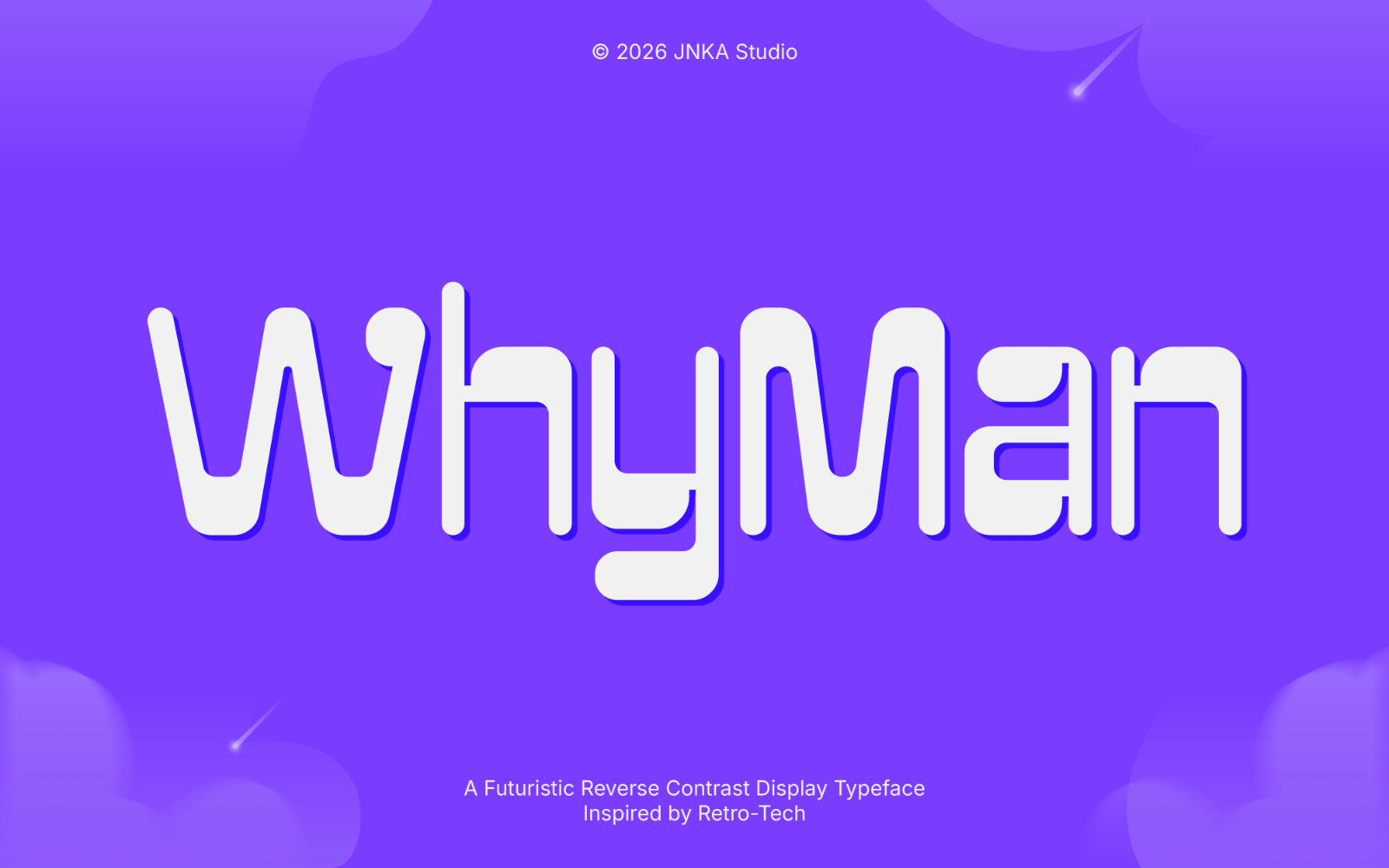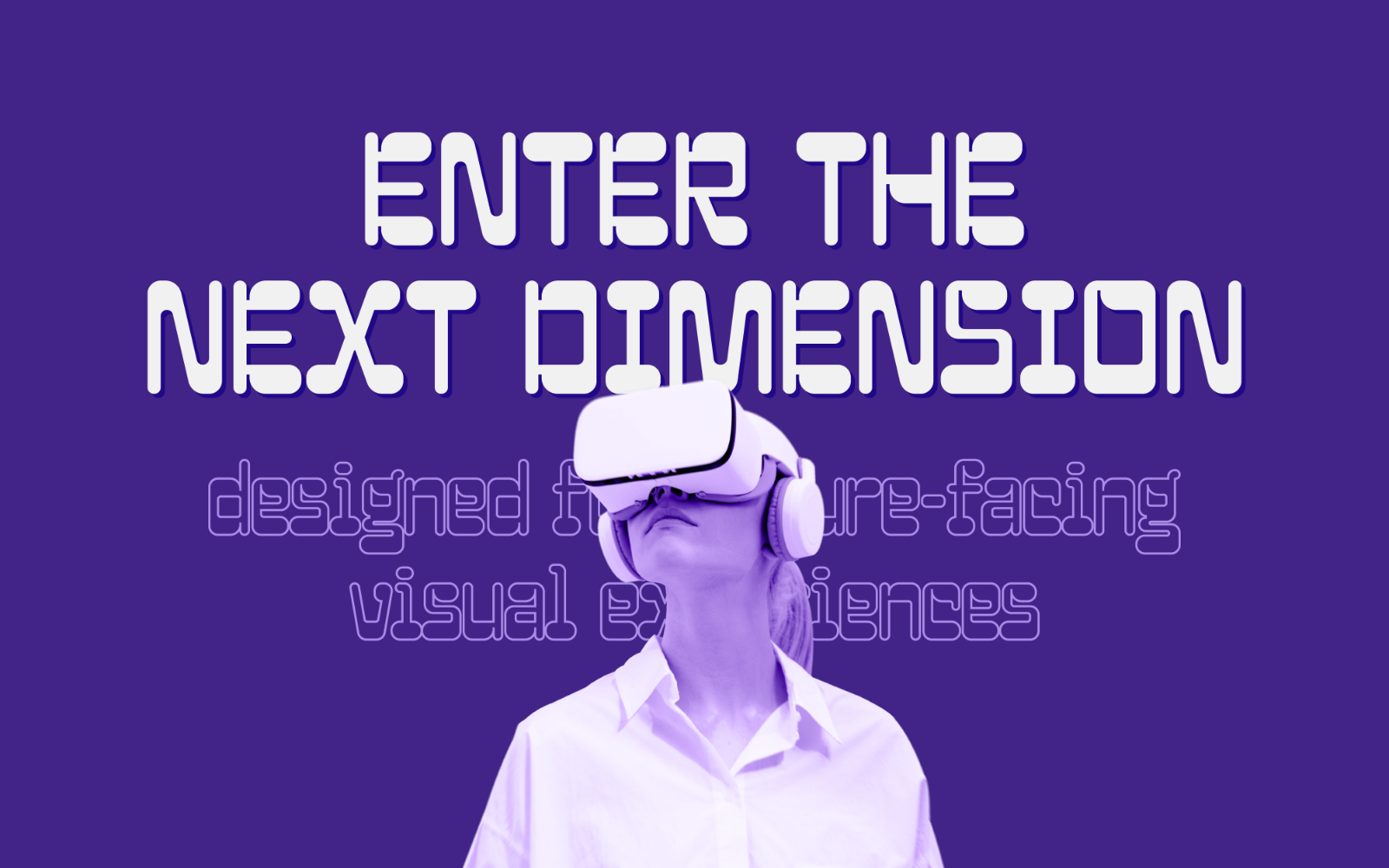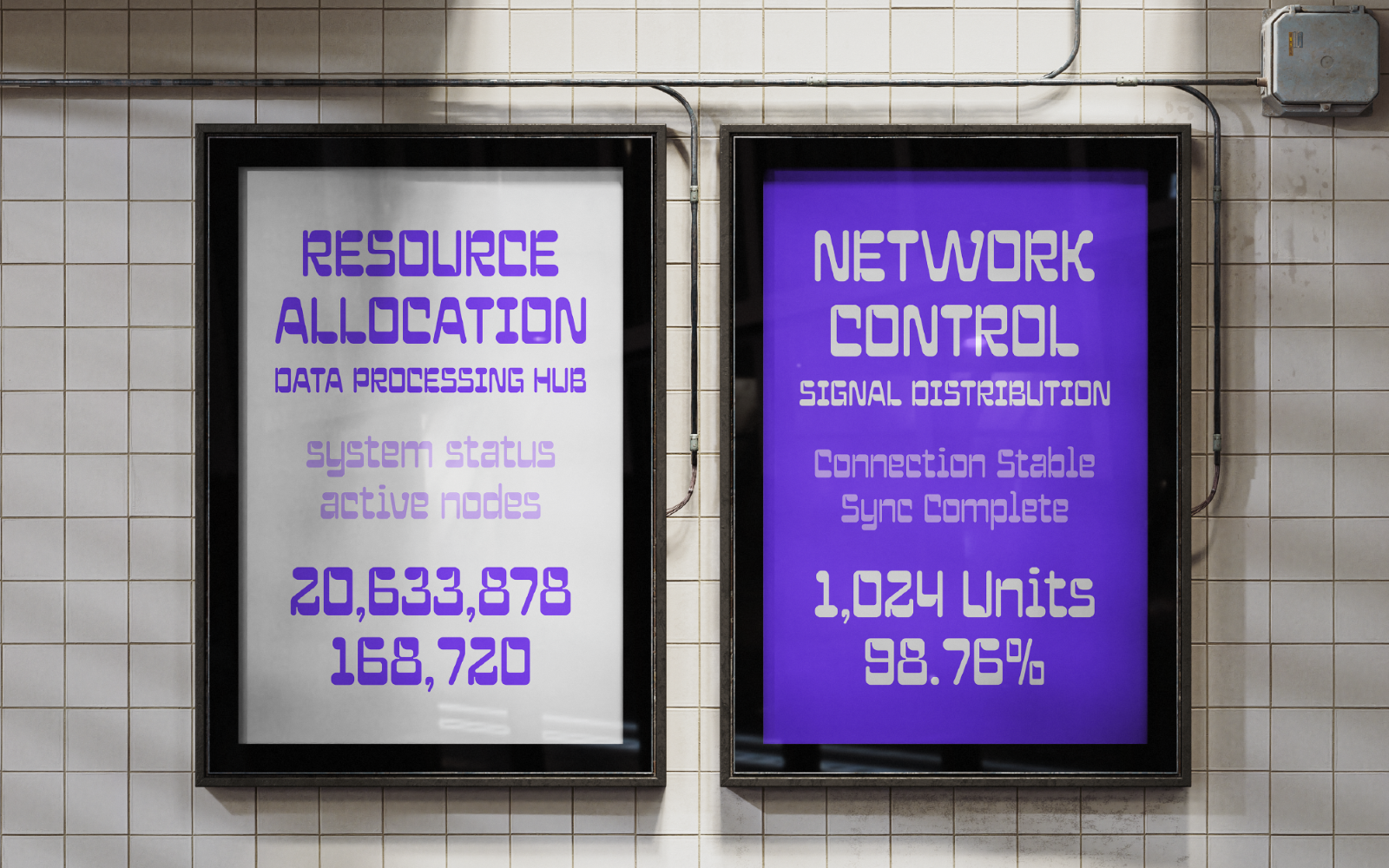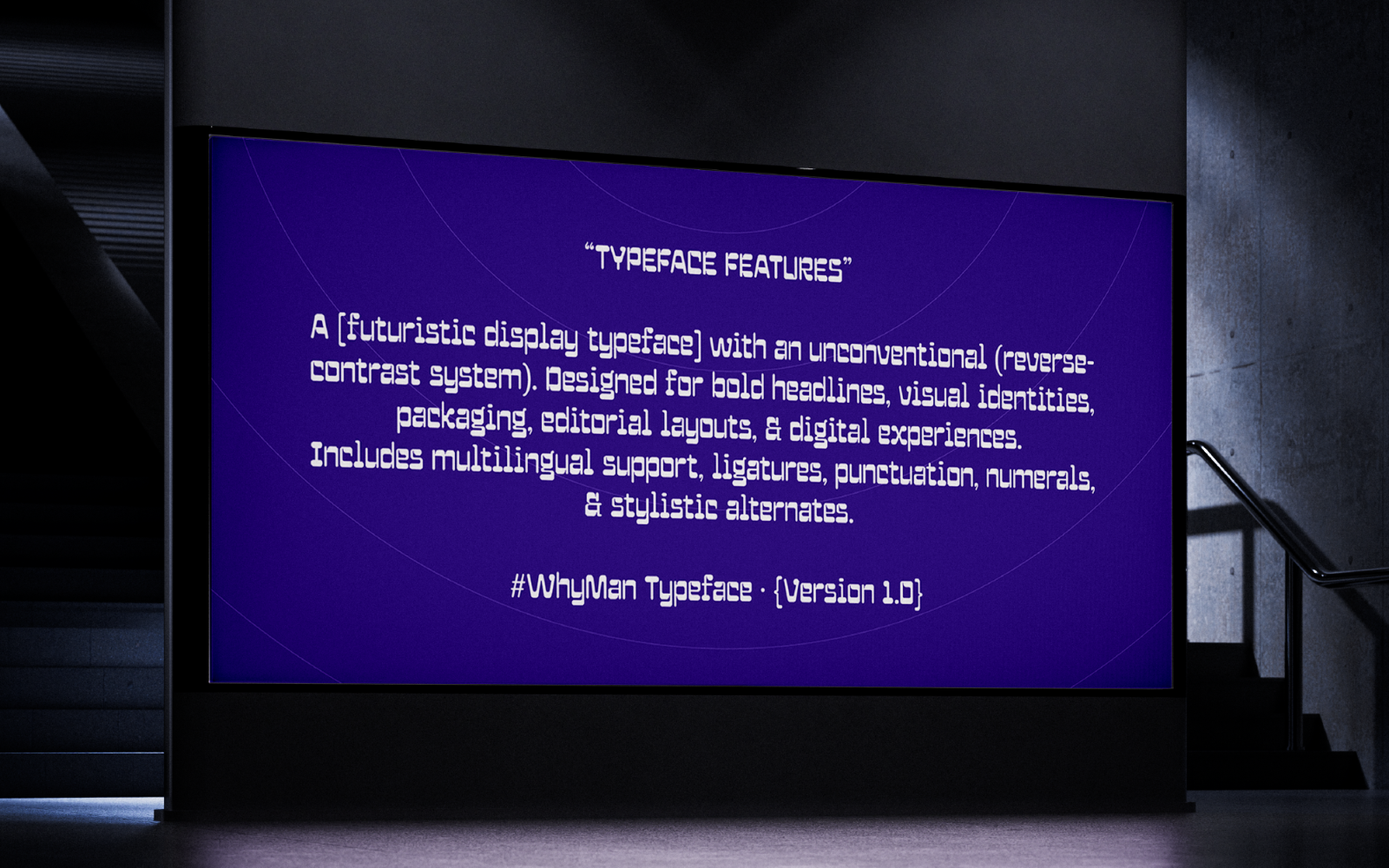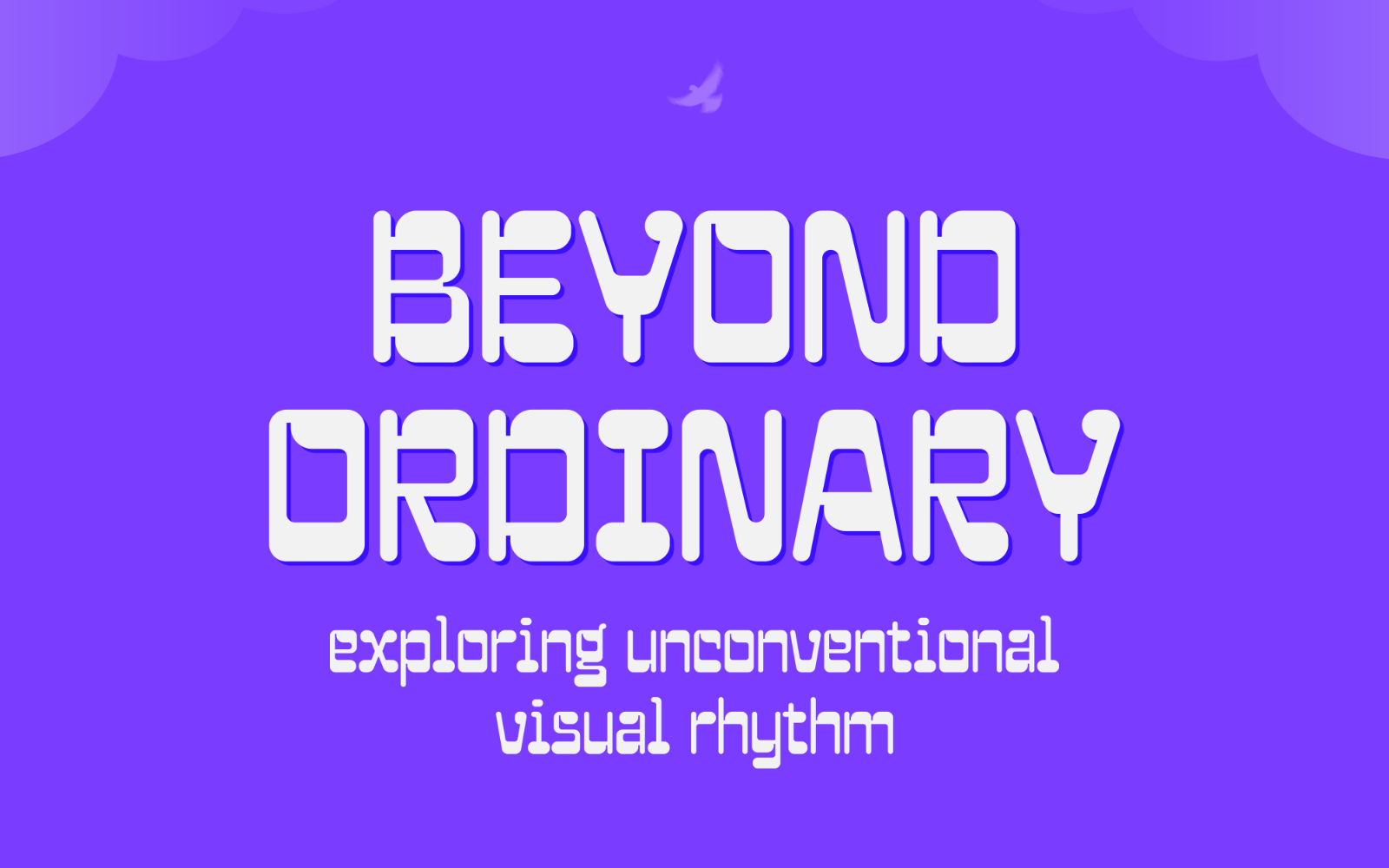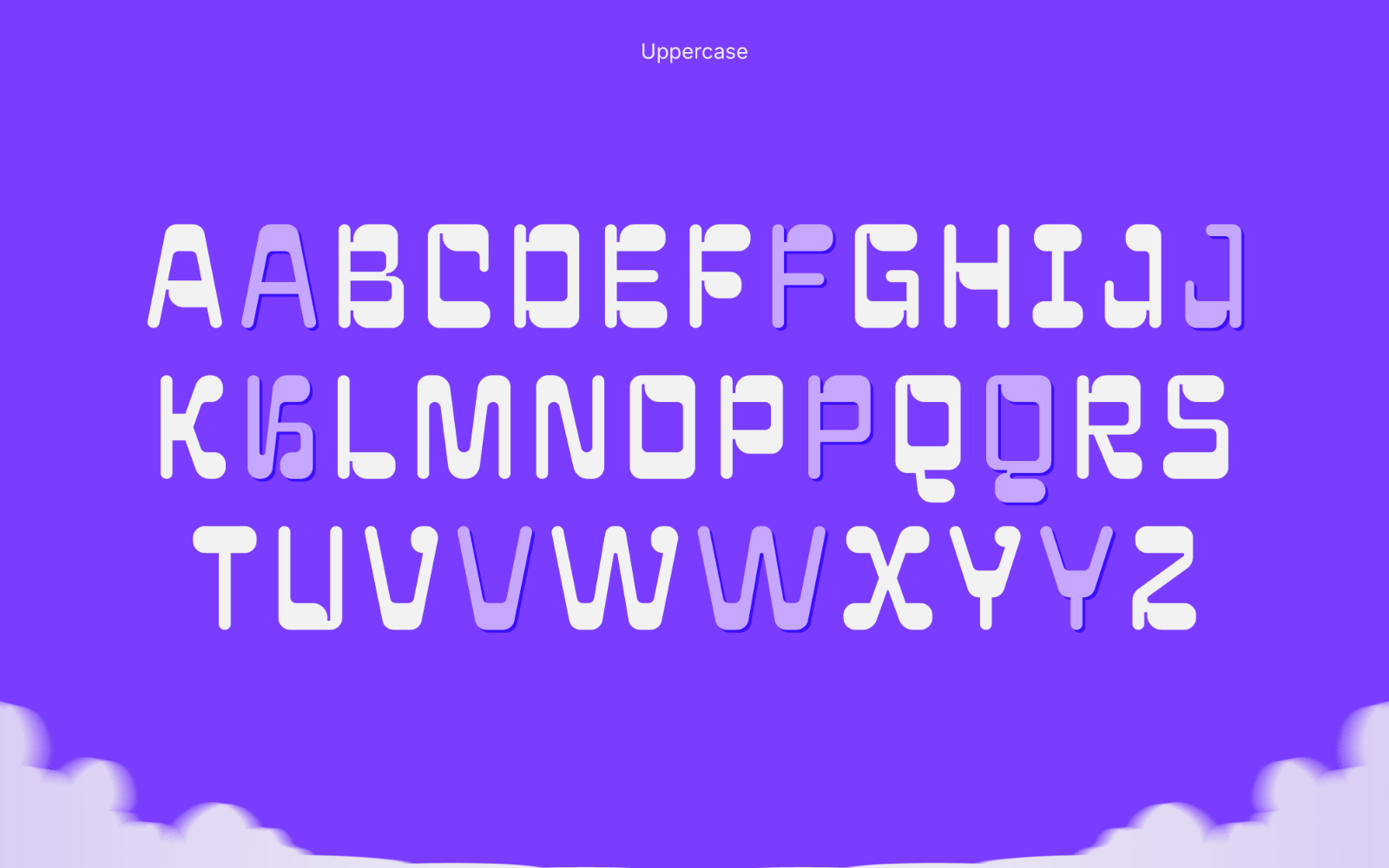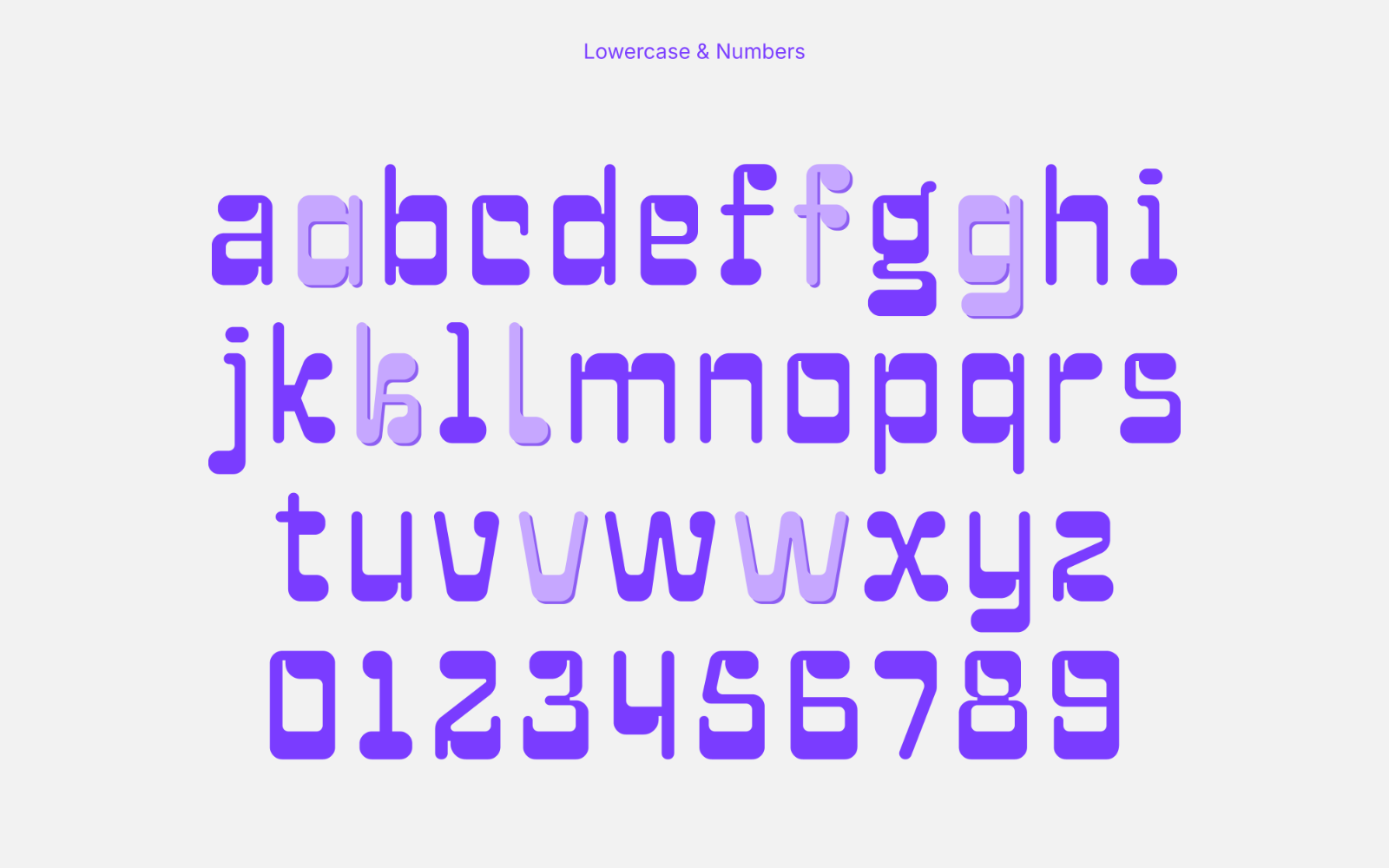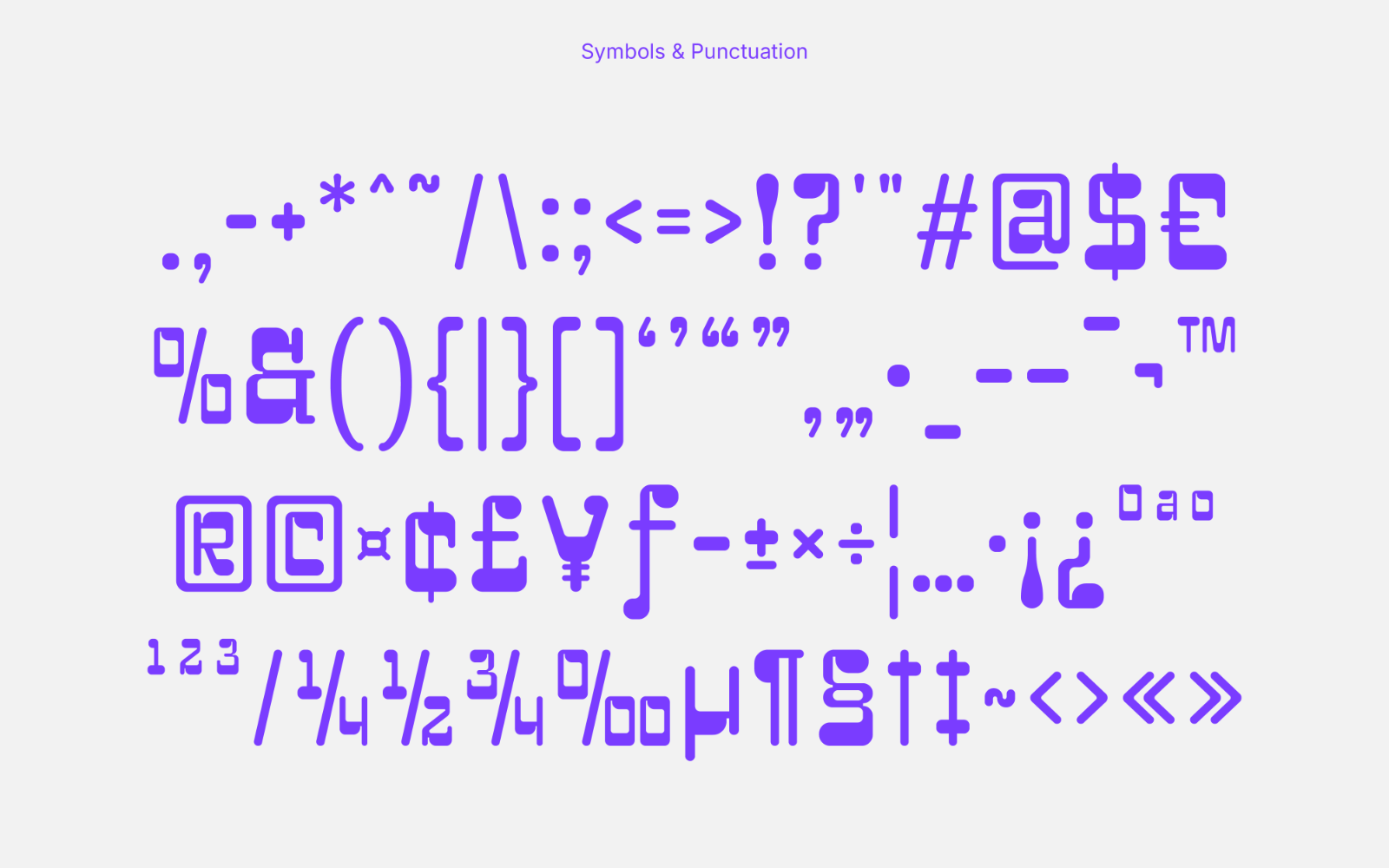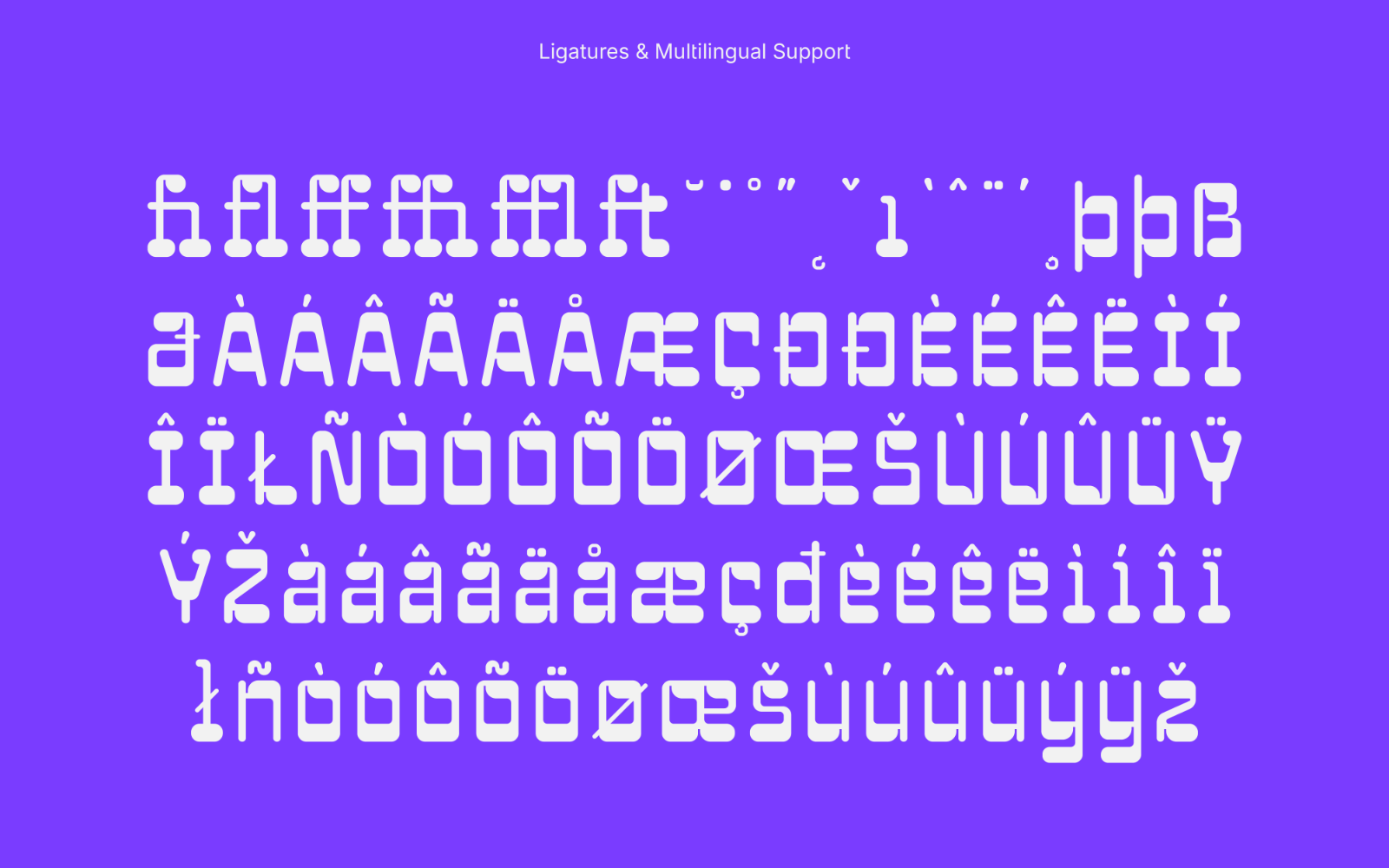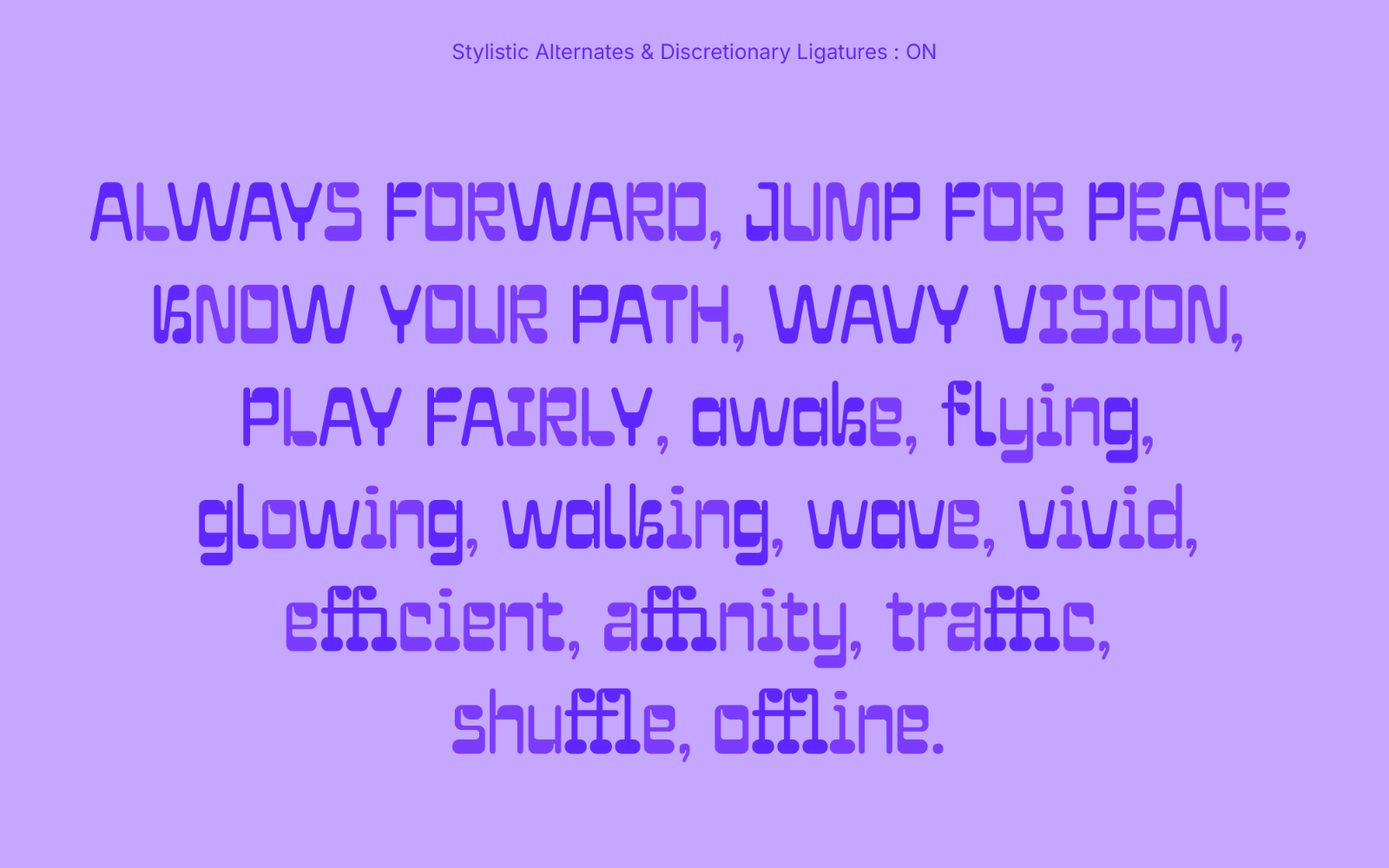
WhyMan
Is a futuristic reverse-contrast display typeface inspired by retro-tech aesthetics and experimental typography. Featuring bold geometric forms, smooth curves, and unconventional stroke contrasts, it creates a distinctive visual identity for branding, posters, packaging, editorial layouts, and other creative display applications. Designed to stand out while maintaining clarity, WhyMan offers a fresh approach to contemporary display typography.
Font Features:
• Uppercase & Lowercase Letters
• Numbers & Standard Punctuation
• Symbols & Special Characters
• Basic Multilingual Support (Latin-based)
• Stylistic Alternates
• Standard & Decorative Ligatures
• Fully PUA Encoded Characters
• Carefully Adjusted Kerning
• Approx. 253 Glyphs
• OpenType Features